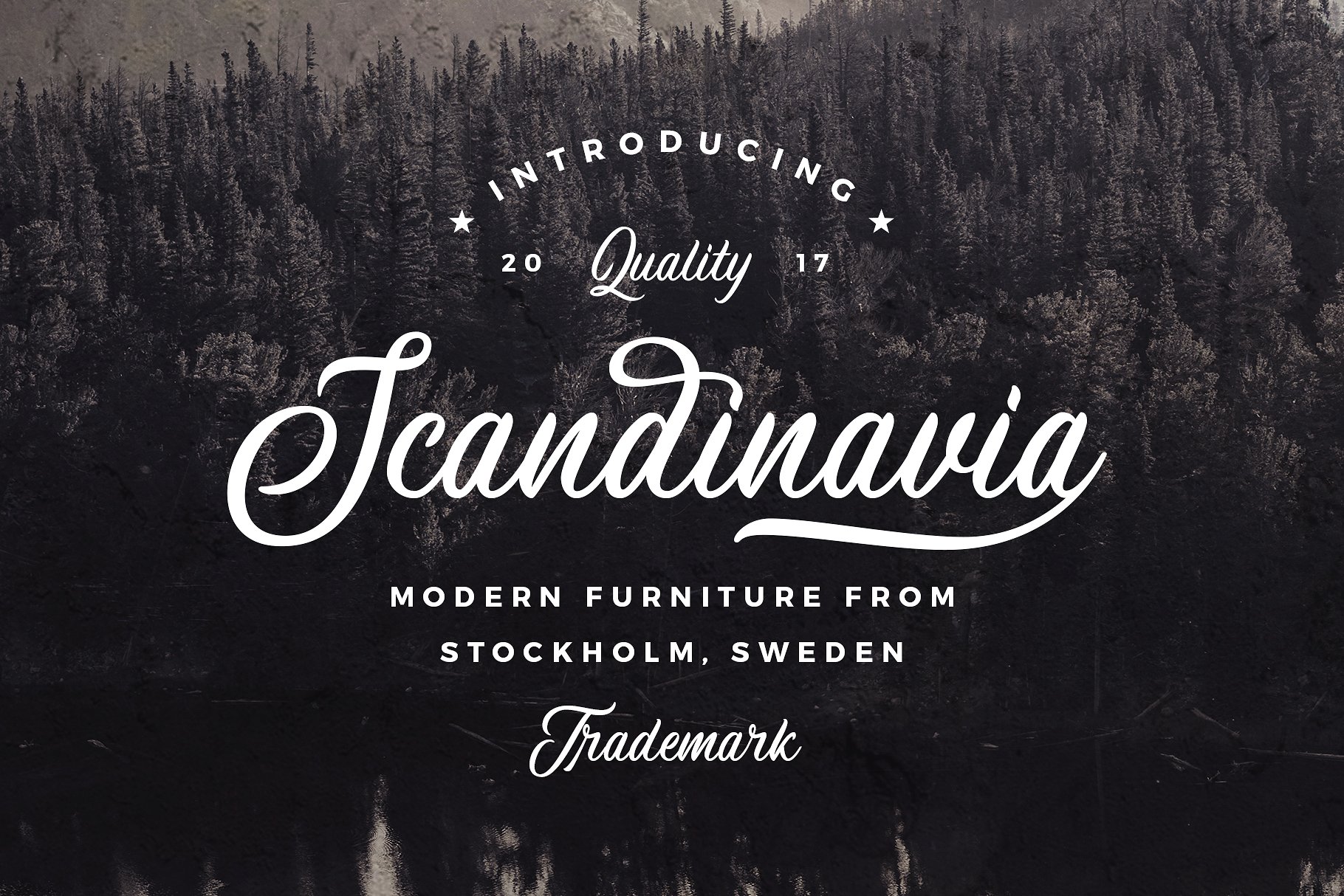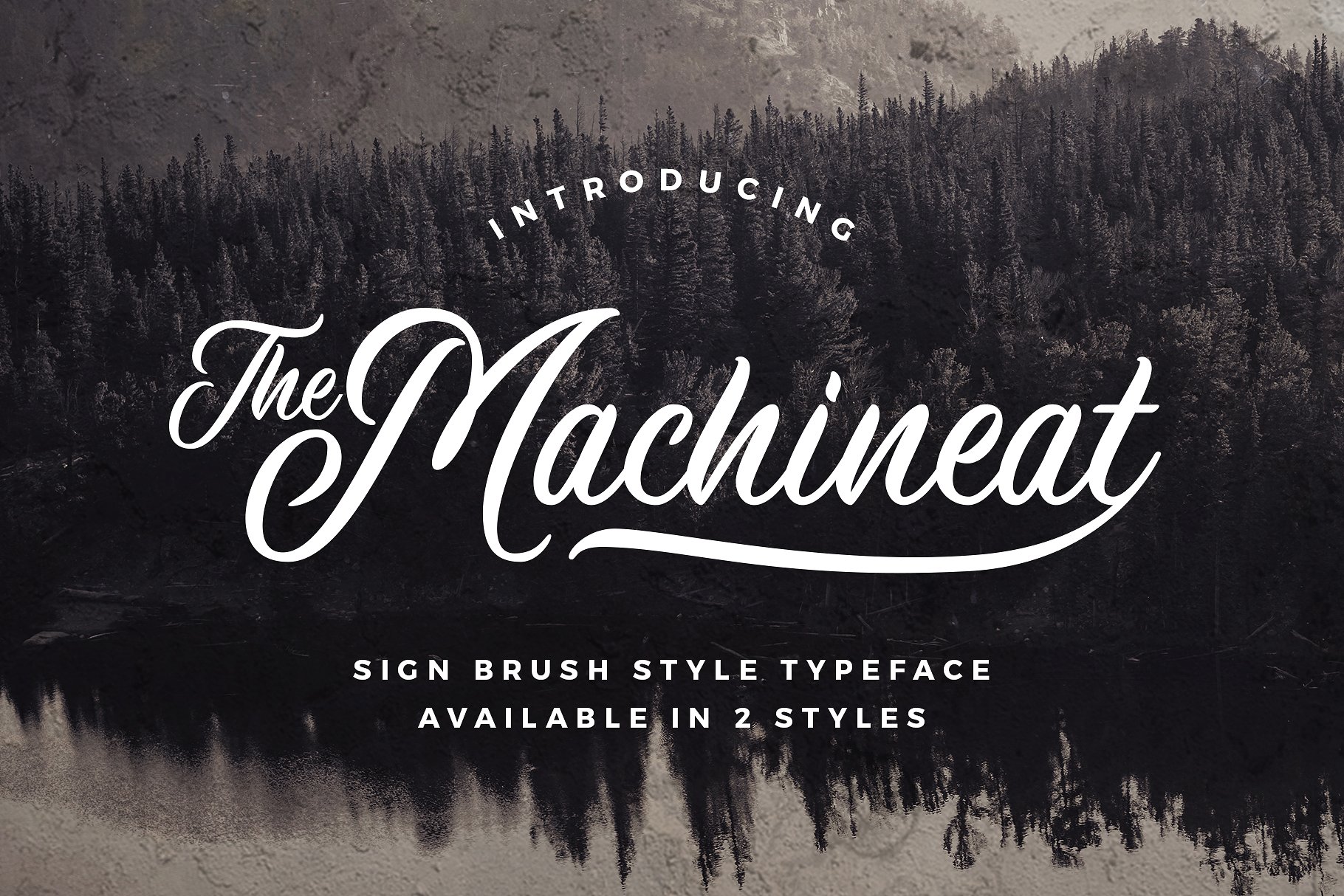
Machineat Brush
Machineat Brush Font
Machineat is truly inspired by traditional handpainted sign style, with the natural flow and handmade taste this typeface is ready to use for your projects such as Logotype, Letterhead, Poster, Apparel Design, Label, Advertisements, Product designs, Mural, and etc.